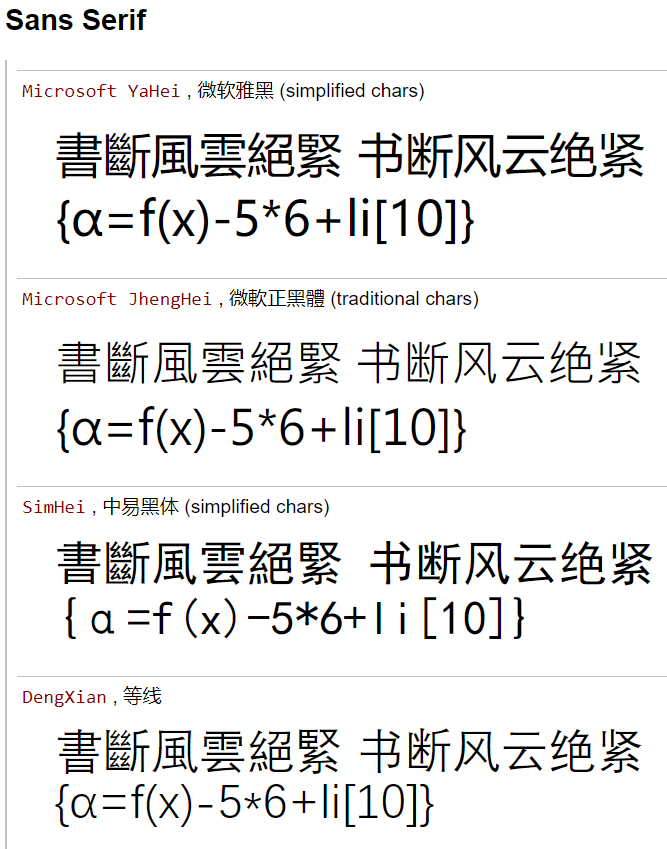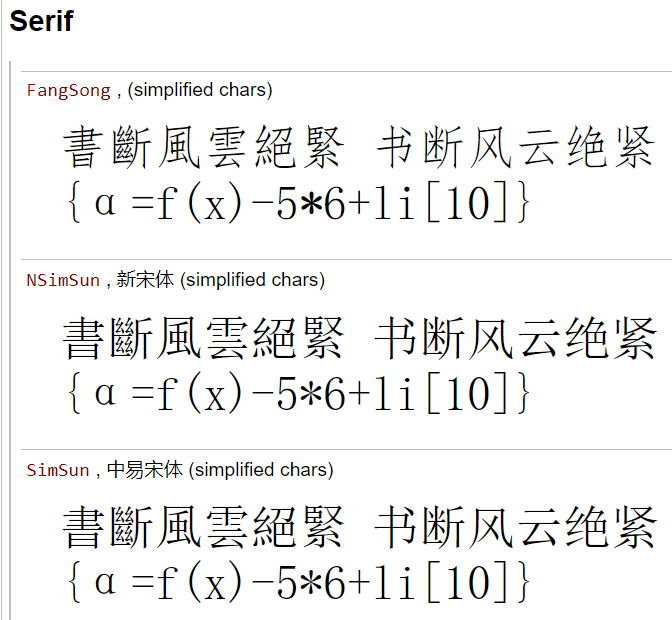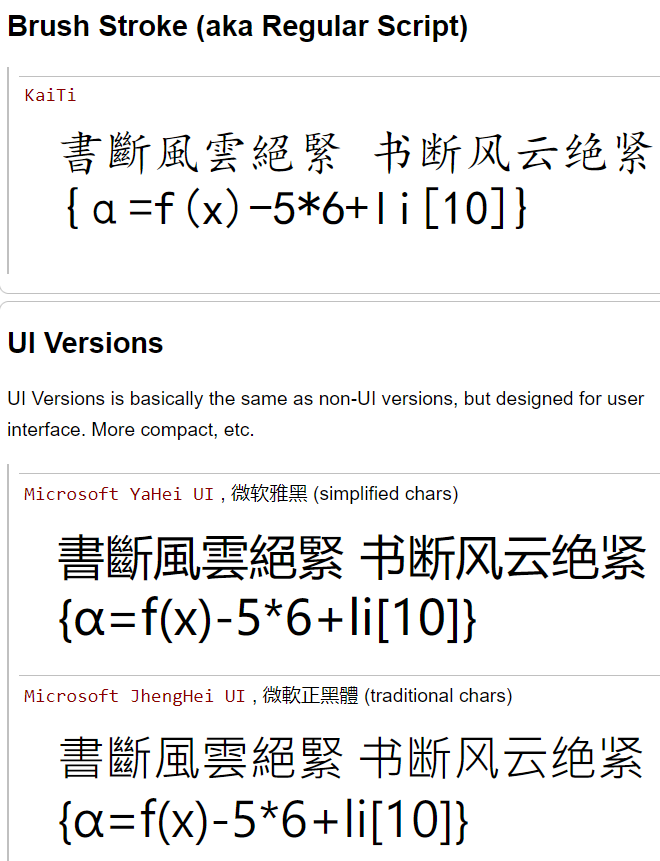
Chinese fonts on Windows
Microsoft Windows Default Font for Chinese
- Microsoft YaHei
- is the default font for Chinese that does not specify region or style.
- Microsoft JhengHei
- is default for Traditional Chinese.
Microsoft Chinese fonts, by screenshots
Sans Serif
Microsoft YaHei, 微软雅黑 (simplified chars)-
Microsoft JhengHei, 微軟正黑體 (traditional chars)-
SimHei, 中易黑体 (simplified chars)-
DengXian, 等线-
Serif
FangSong, (simplified chars)-
NSimSun, 新宋体 (simplified chars)-
SimSun, 中易宋体 (simplified chars)-
Brush Stroke (aka Regular Script)
KaiTi-
UI Versions
UI Versions is basically the same as non-UI versions, but designed for user interface. More compact, etc.
Microsoft YaHei UI, 微软雅黑 (simplified chars)-
Microsoft JhengHei UI, 微軟正黑體 (traditional chars)-
Text Source
Font sample text is based from 西游记,第五十九回:唐三藏路阻火焰山,孙行者一调芭蕉扇
Full verse is 薄云断绝西风紧,鹤鸣远岫霜林锦。